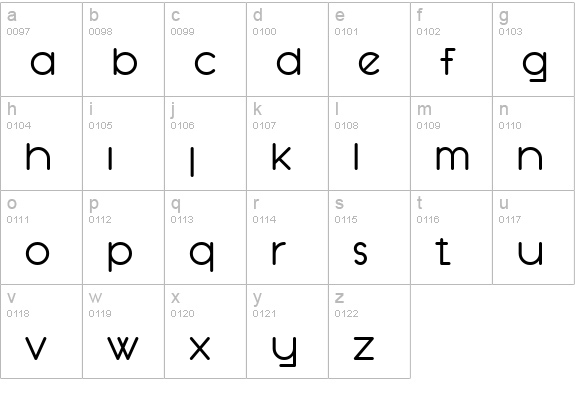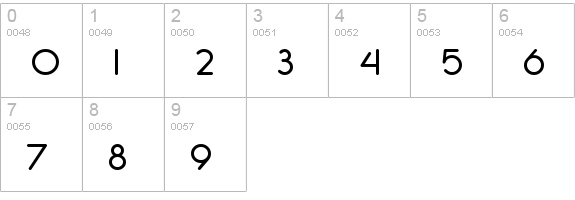
SF Orson Casual Medium Font Details
SF Orson Casual Medium is a balanced, medium-weight variant in the SF typeface family \xE2\x80\x94 well suited to sub-headlines, navigation, and balanced editorial work.
SF Orson Casual Medium is a versatile and modern font that effortlessly combines elegance with a touch of playfulness. Its clean and rounded lines make it suitable for a wide range of design projects, from logos and branding to headlines and body text. This font offers a perfect balance between sophistication and approachability, making it ideal for both professional and creative purposes. Whether you're designing a sleek corporate website or a trendy magazine spread, SF Orson Casual Medium will bring a touch of class to your work. One of the best things about SF Orson Casual Medium is that it is freely available to download at FontsMarket.com. This means that you can easily access this amazing font without any cost, allowing you to enhance your design projects without breaking the bank. With just a few clicks, you can bring this beautiful typeface to life and elevate the visual appeal of your creations. With its medium weight, SF Orson Casual Medium strikes the perfect balance between legibility and style. It ensures that your text stands out while maintaining a high level of readability, making it ideal for both print and digital applications. Whether you're creating a poster, flyer, or website, this font will make your message clear and captivating. SF Orson Casual Medium also boasts a wide range of characters, including uppercase and lowercase letters, numerals, punctuation marks, and special symbols. This extensive character set ensures that you have all the tools you need to express your creativity and bring your vision to life. In conclusion, SF Orson Casual Medium is a free font that offers a perfect blend of elegance and playfulness. Its versatility and readability make it an excellent choice for a variety of design projects. Don't miss out on the opportunity to enhance your work with this stunning typeface - download SF Orson Casual Medium for free at FontsMarket.com and take your designs to the next level.